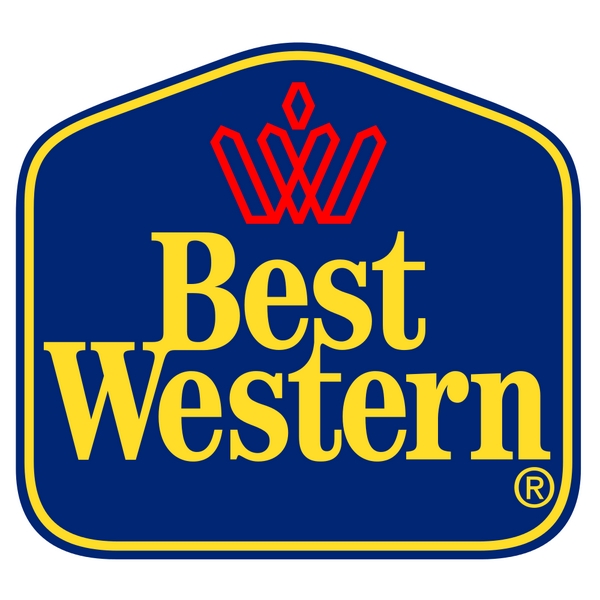
Best Western Font
Fonts in UseBest Western is a global hotel chain that operates over 4,700 hotels in more than 100 countries. The chain offers a range of accommodation options for business and leisure travelers, including economy, midscale, and upscale hotels.
Best Western's logo font is probably ITC Century Bold Condensed. It was commissioned by ITC in 1975 and redesigned by Tony Stan, resulting in four weights, matching italics, and eight condensed versions with tighter spacing and increased heights. You can learn more about the font here.